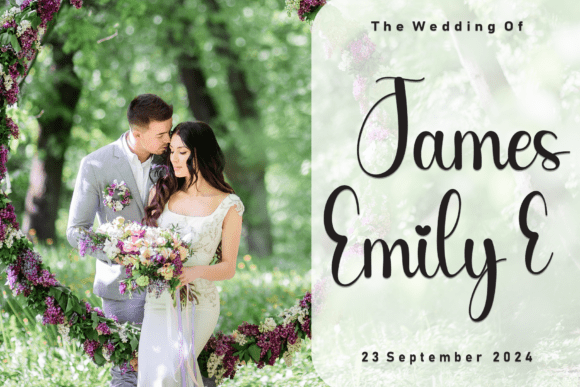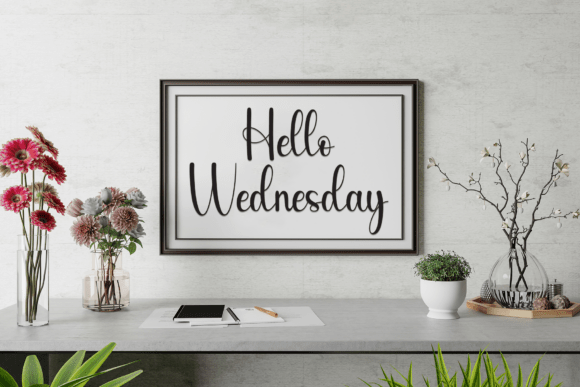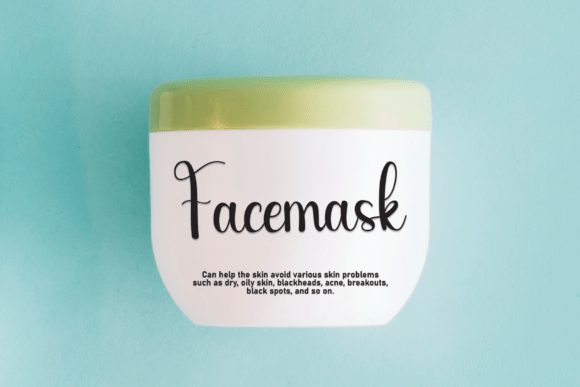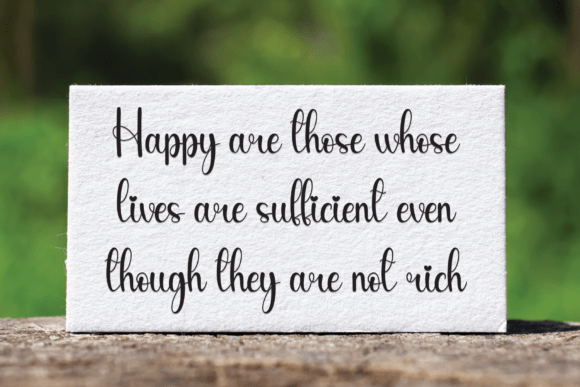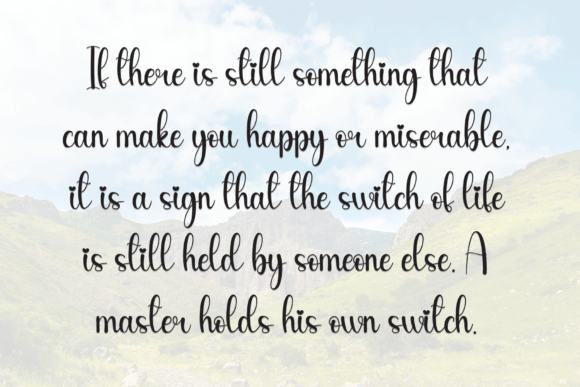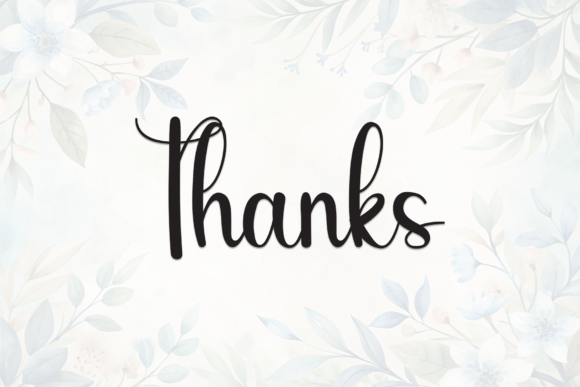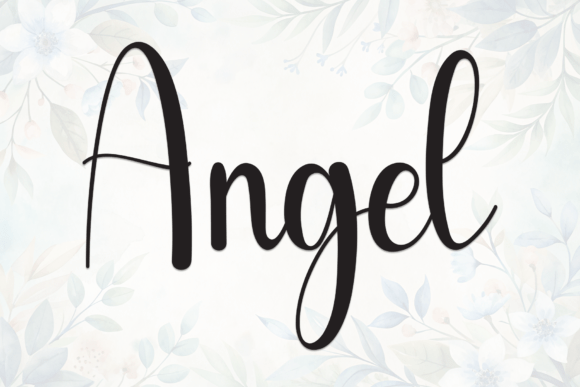
Discover the Enchanting Angel Font: Elevate Your Designs with Whimsy and Charm
Are you on the hunt for a typeface that embodies the essence of joy, festivity, and whimsy? Look no further than the captivating Angel Font. This delightful font boasts a charisma that effortlessly draws the gaze, spinning it into a luminescent web of charm. With its bubbly characteristic, Angel perfectly enhances the festive spirit of wedding invitations, greeting cards, and various design projects, injecting them with an irresistible medley of enthralling intrigue and radiant joy.
The Allure of Angel Font
Longed for by design aficionados, Angel Font serves as a jewel in the world of typography. Its unique and captivating design makes it an ideal choice for crafters and designers seeking to add a touch of magic to their creations. Whether you’re working on wedding invitations, greeting cards, or any other design project, Angel Font is sure to infuse your works with a joyful boost.
Perfect for Festive and Joyous Occasions
Angel Font’s playful and lively demeanor makes it an excellent choice for festive and joyous occasions. Its bubbly characteristic perfectly captures the essence of celebrations, making it an ideal fit for:
- Wedding invitations: Add a touch of romance and whimsy to your wedding invitations, setting the tone for a joyous and unforgettable celebration.
- Greeting cards: Infuse your greeting cards with a sincere and heartfelt undertone, making them perfect for special occasions like birthdays, anniversaries, and holidays.
- Party invitations: Create eye-catching and festive party invitations that will leave a lasting impression on your guests.
Unleash Your Creativity with Angel Font
Angel Font is more than just a typeface – it’s a creative tool that allows designers and crafters to express themselves in unique and imaginative ways. With Angel, you can:
- Add a touch of whimsy to your designs, making them stand out from the crowd.
- Create visually appealing and engaging projects that capture the attention of your audience.
- Infuse your works with a sense of joy and festivity, perfect for special occasions and celebrations.
Why Designers and Crafters Love Angel Font
Designers and crafters alike adore Angel Font for its versatility, charm, and ability to elevate their designs. Here are just a few reasons why:
- Unique and eye-catching design: Angel Font’s captivating design makes it a standout in any design project.
- Versatile: Angel Font can be used for a wide range of design projects, from wedding invitations to party decorations.
Get Ready to Soar with Angel Font
Let your artistic expressions soar with Angel Font, infusing your works with an irresistible medley of enthralling intrigue and radiant joy. Whether you’re a seasoned designer or a crafty enthusiast, Angel Font is sure to become your go-to typeface for all your design needs.
So why wait? Discover the enchanting world of Angel Font today and unlock a world of creative possibilities. With its captivating charm and whimsical design, Angel Font is sure to take your designs to new heights.